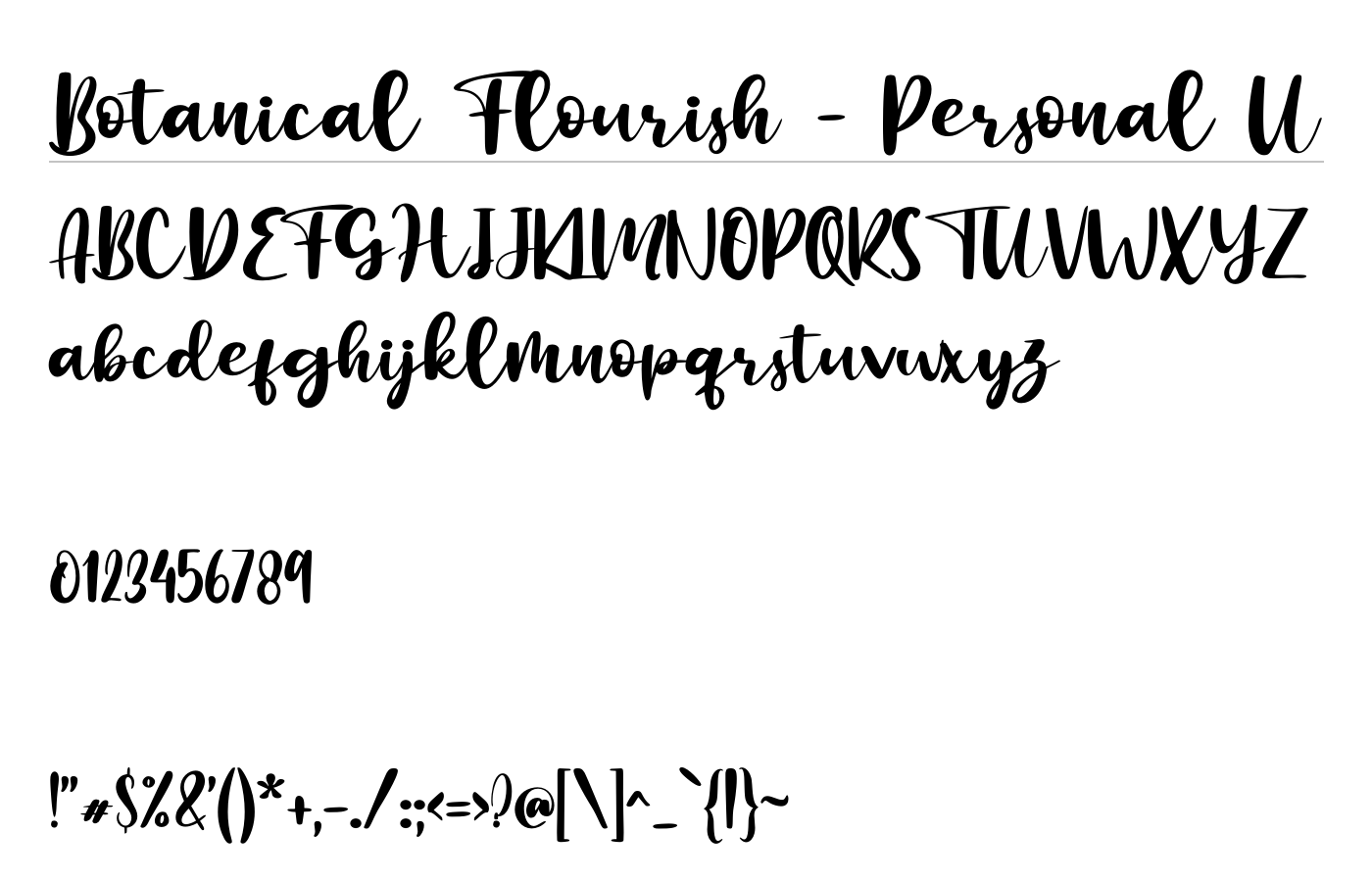
Botanical Flourish is a playful and elegant handwritten script font with a lively, flowing style that combines thick and thin strokes for a natural, organic feel. Its tall x-height and rounded letterforms create a friendly, approachable look, making it perfect for branding, invitations, and creative projects that seek a warm, personal touch. This font shines best in headlines and logos where its distinctive flourishes and charm can stand out.
Botanical Flourish - Personal U Font
About Botanical Flourish - Personal U Font